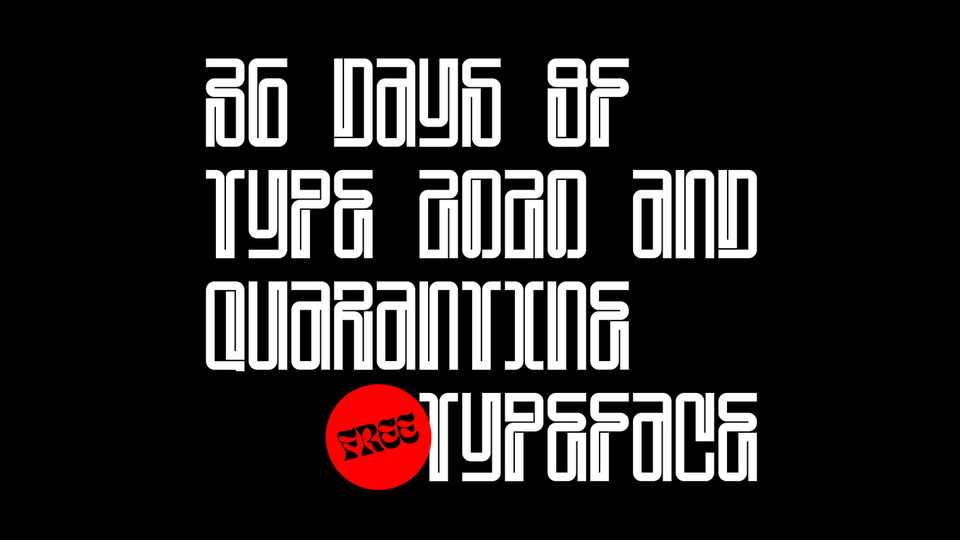
Download Quarantine font, a unique display typeface designed during 36daysoftype challenge, but sadly this one was also like 36 days of quarantine.
Designer: Ivan Alves